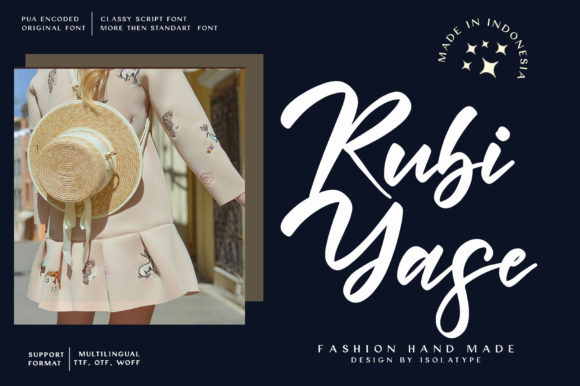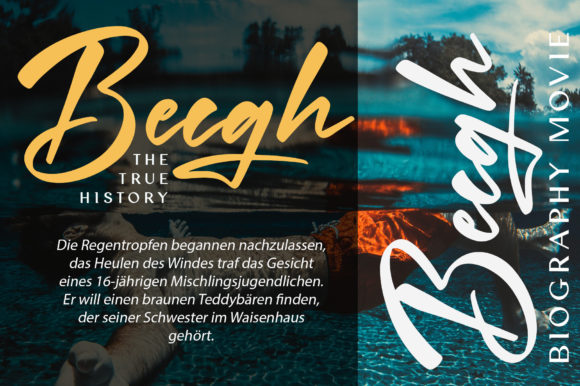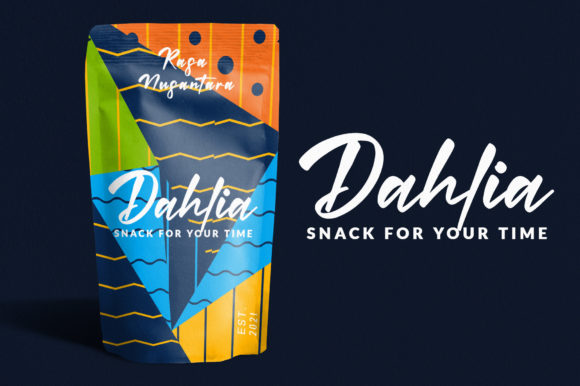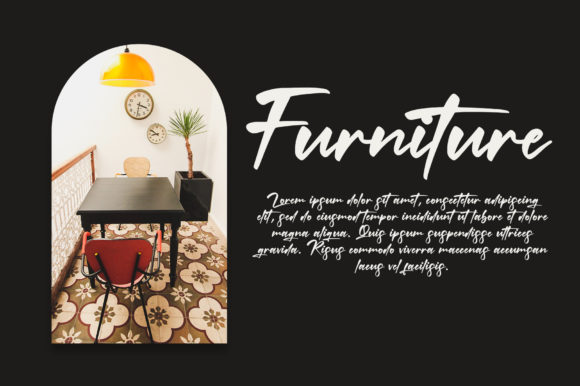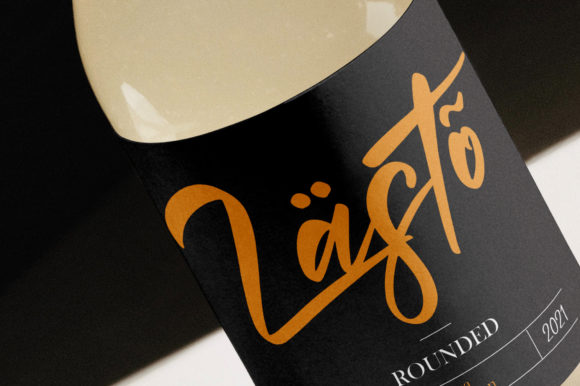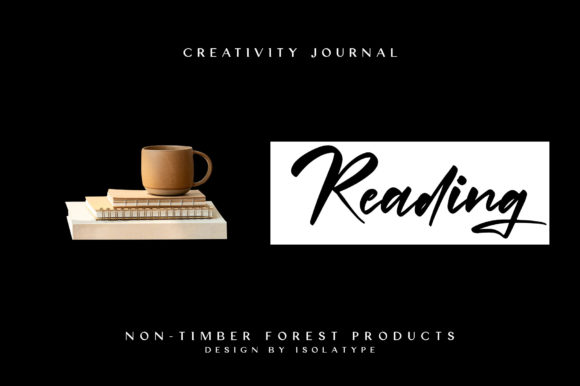
Introduction to Miss Gymick Font
Miss Gymick feels equally charming and elegant.
Key Features of Miss Gymick Font
Why Choose Miss Gymick Font?
Miss Gymick Font offers exceptional quality and versatility, making it a valuable addition to your design toolkit. Whether you’re creating for personal projects or commercial use, Miss Gymick Font delivers professional results.